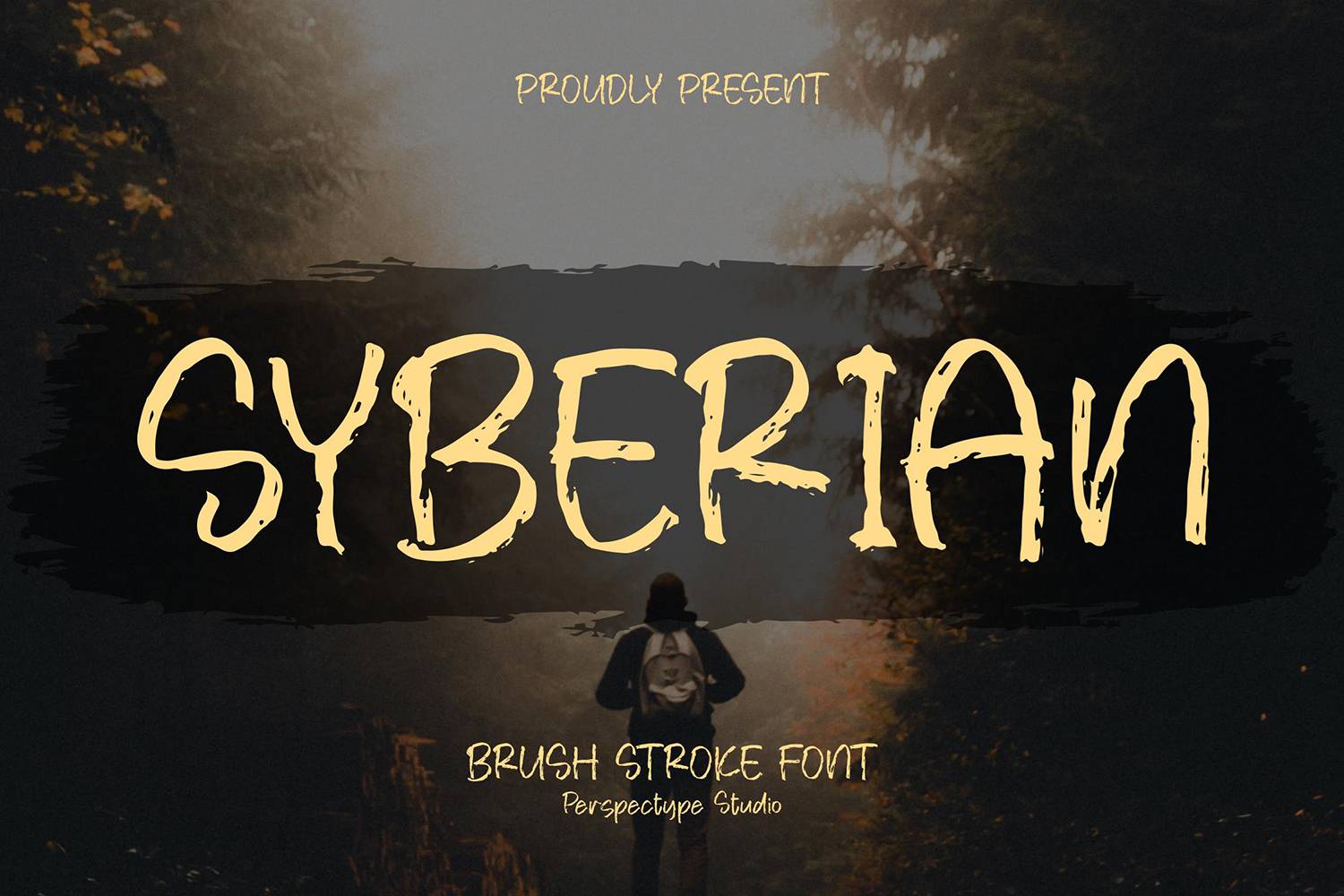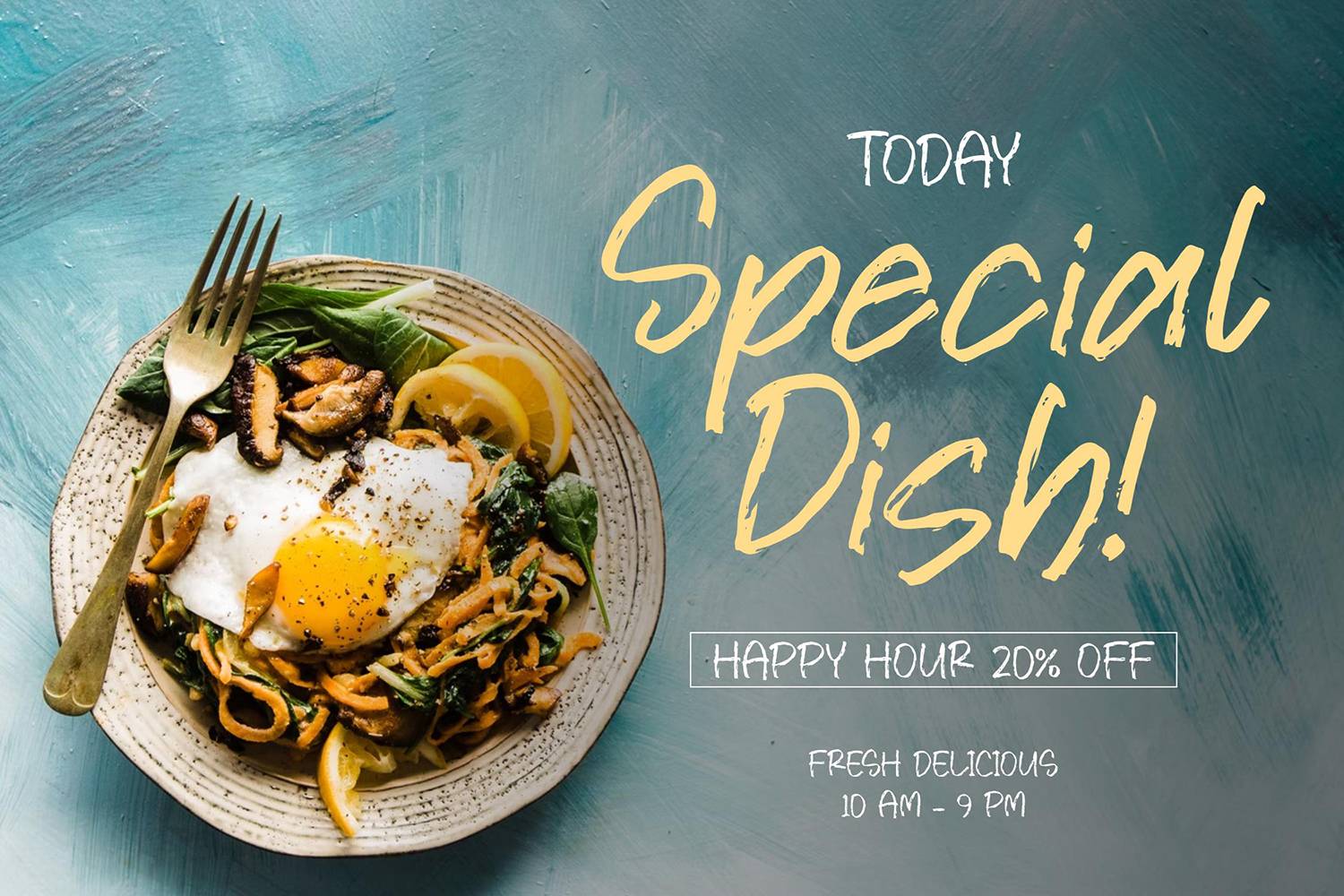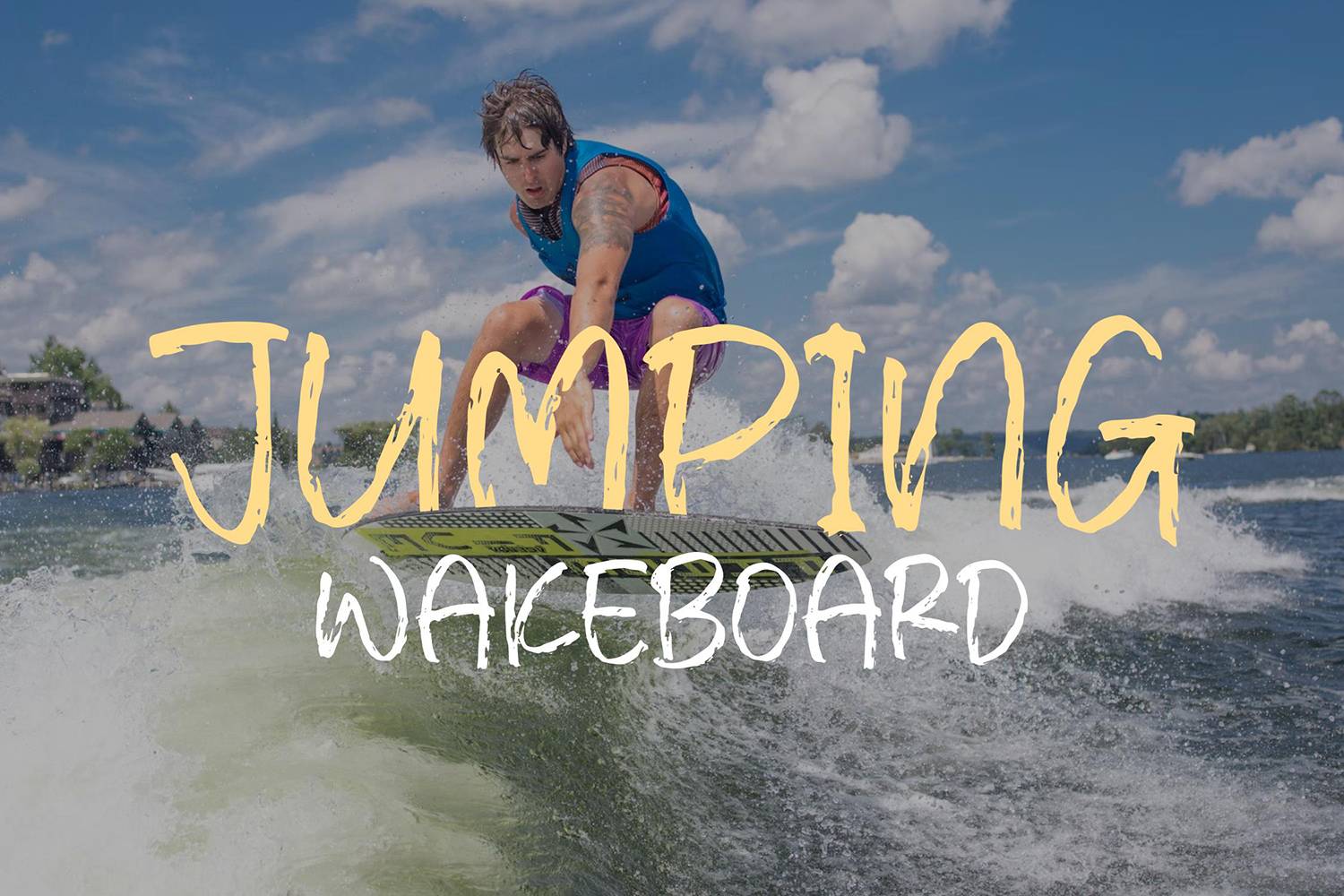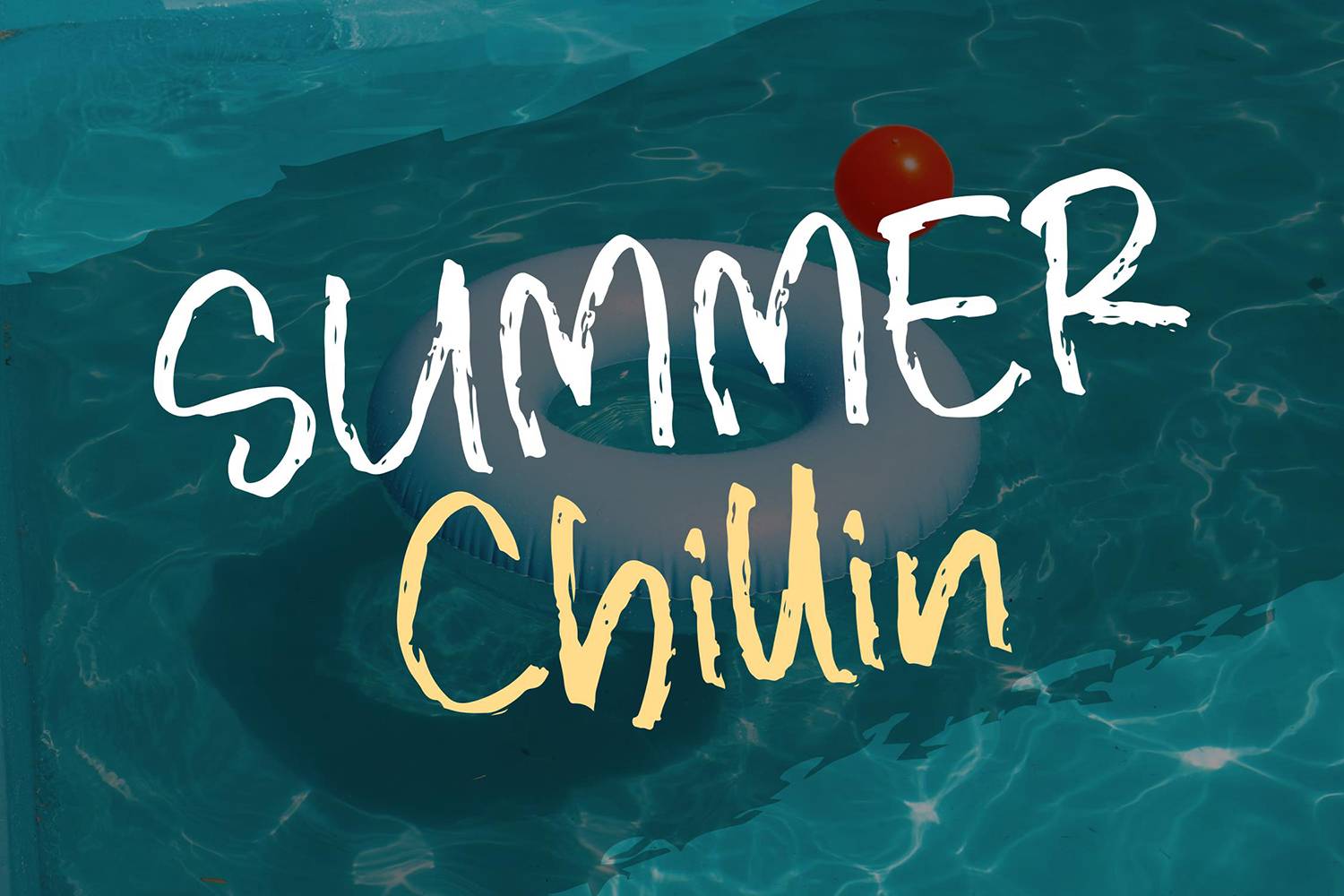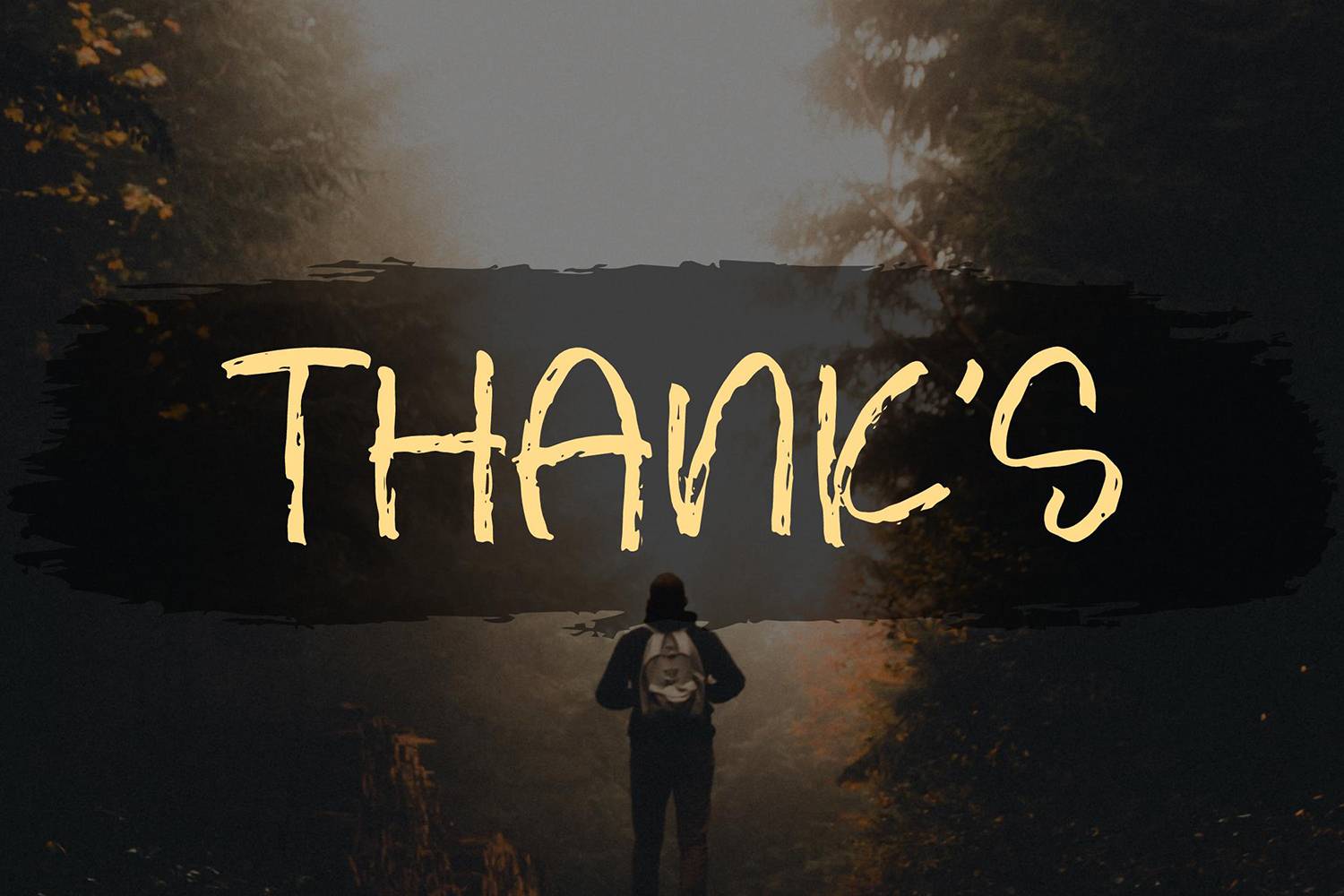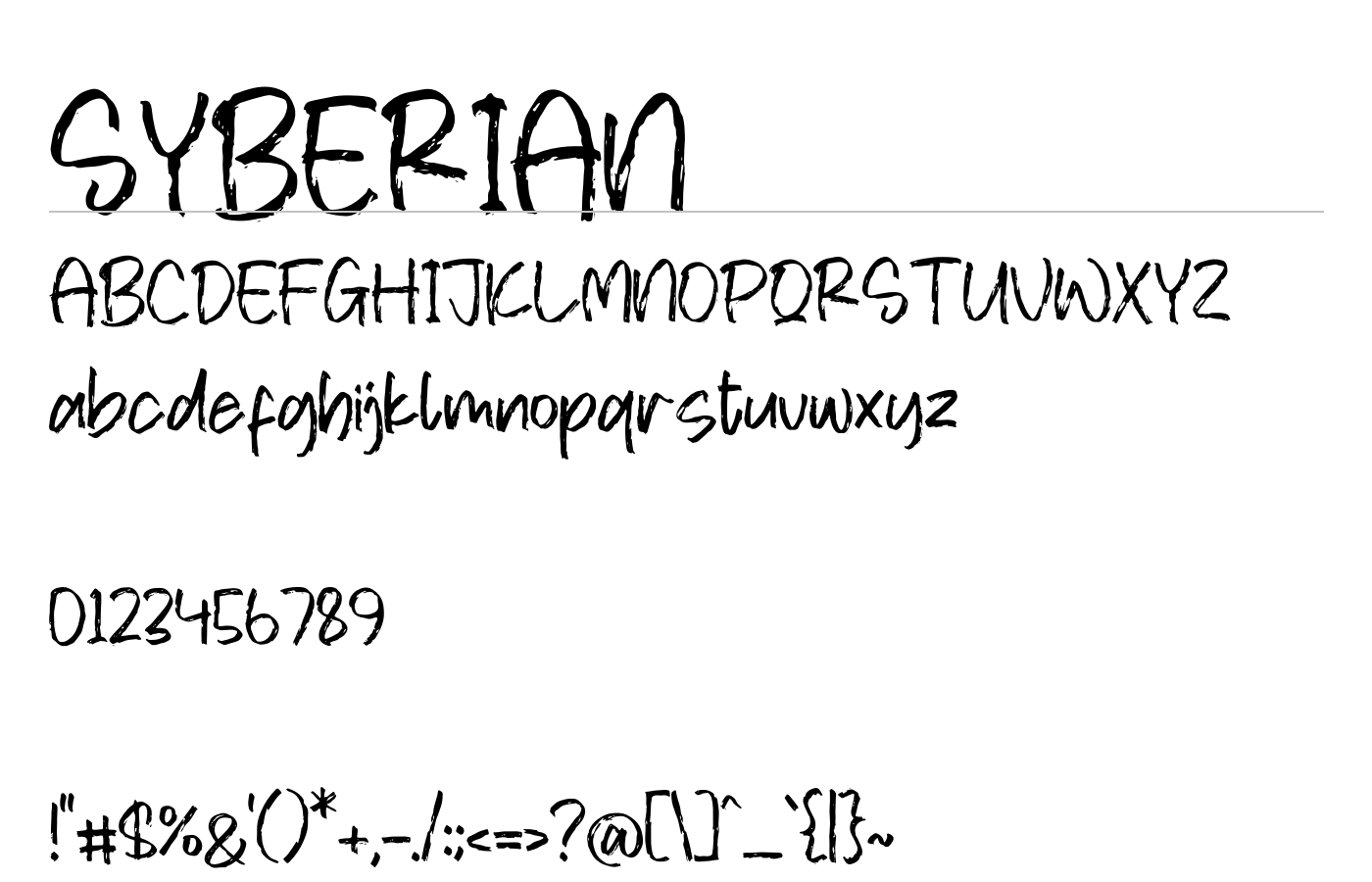
Syberian is a casual, hand-drawn sans serif font with a rough, textured stroke that gives it an organic and expressive feel. Its irregular letterforms and lively style make it perfect for creative, informal designs that want to convey personality and energy. This font works well in poster headlines, branding for artistic or youth-oriented projects, and any context where a bold, handwritten look is desired.
Syberian Font
About Syberian Font
| Font family | Syberian Font |